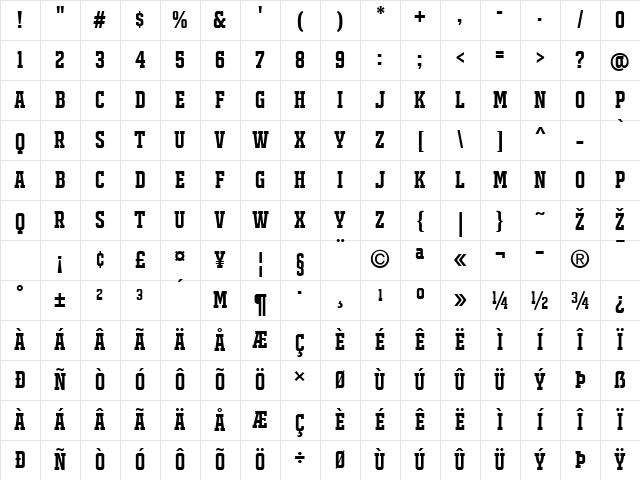
JACKPORT REGULAR NCV Regular
Foundry: The Fontry
Design Context for JACKPORT REGULAR NCV
JACKPORT REGULAR NCV is a composed and adaptable typeface that performs quietly and consistently across a wide range of design contexts.
Who designed the JACKPORT REGULAR NCV Regular font?